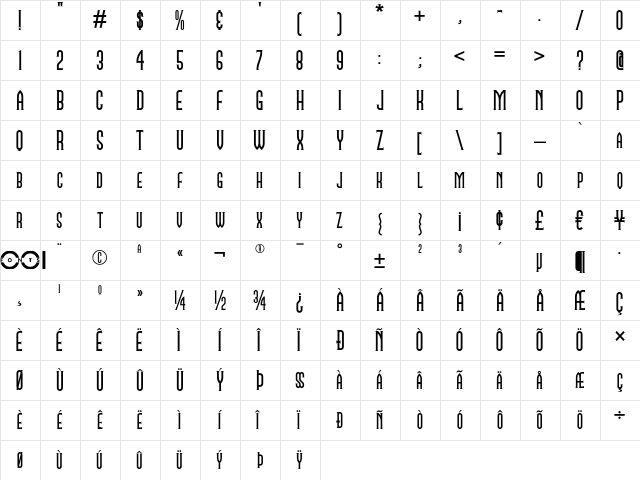
Namesake NF Regular
| Foundry | Nick's Fonts |
| Designer | Nick Curtis |
Design Context for Namesake NF Typeface
Namesake NF offers clean, dependable letterforms without strong stylistic allegiance, making it a practical choice for designers who need flexibility.
Pro Tip: Use Namesake NF in both headline and body roles to test its range before committing to a single application.